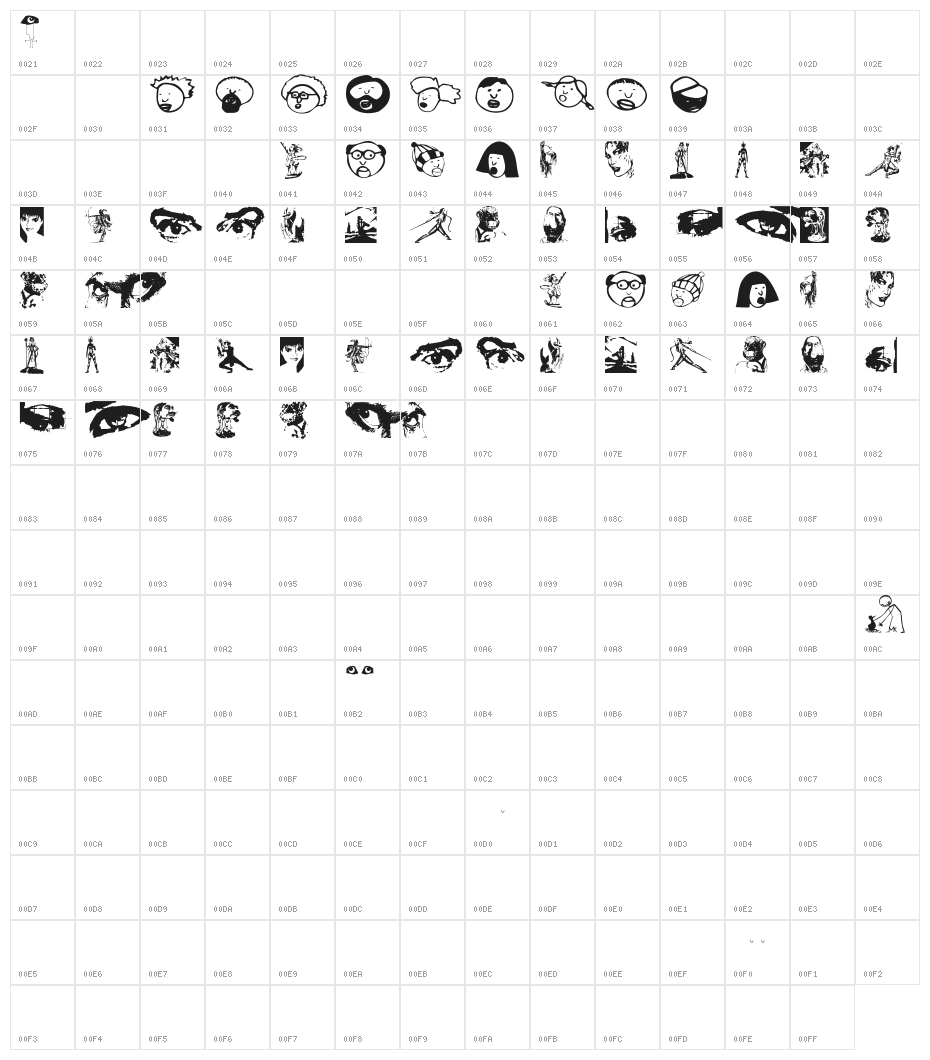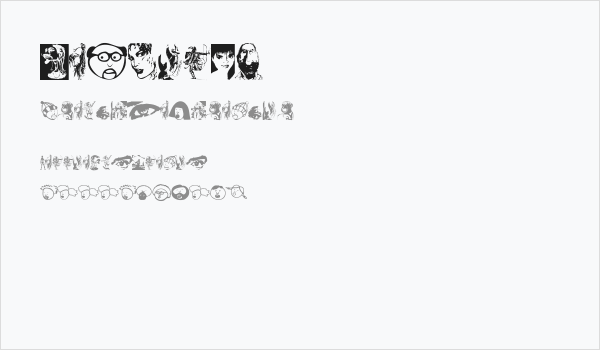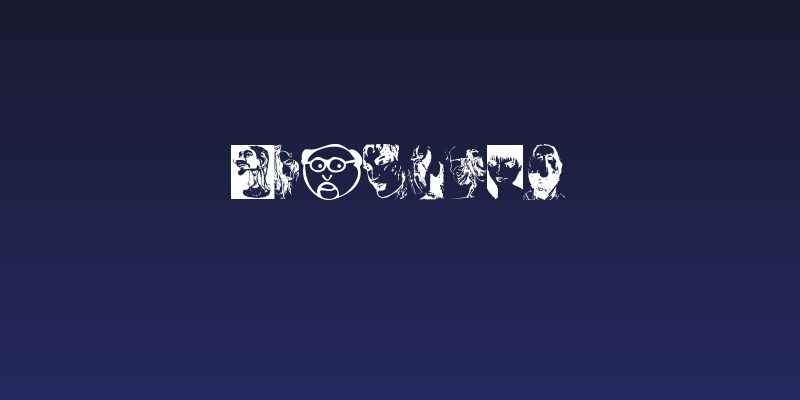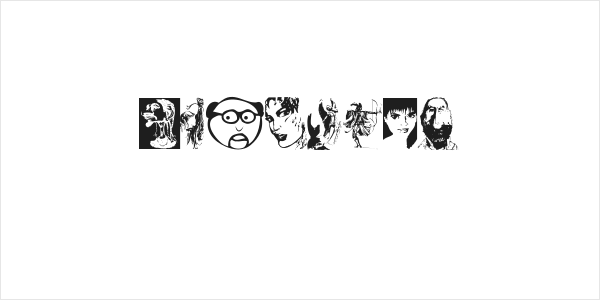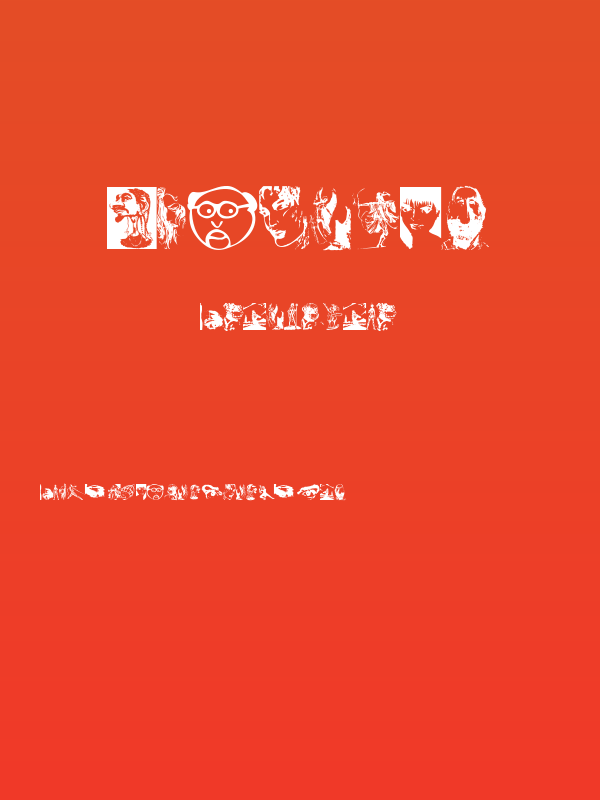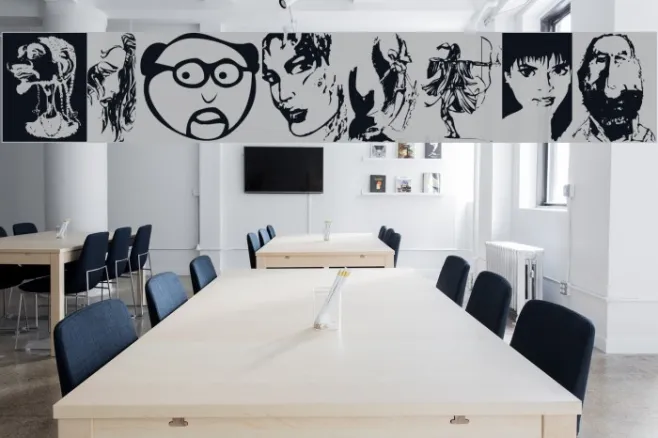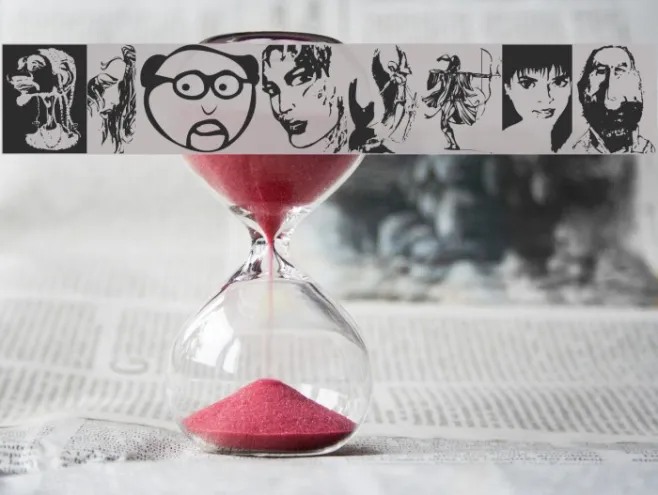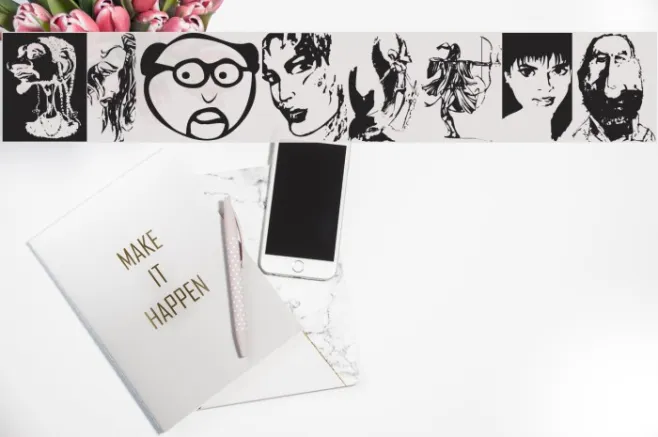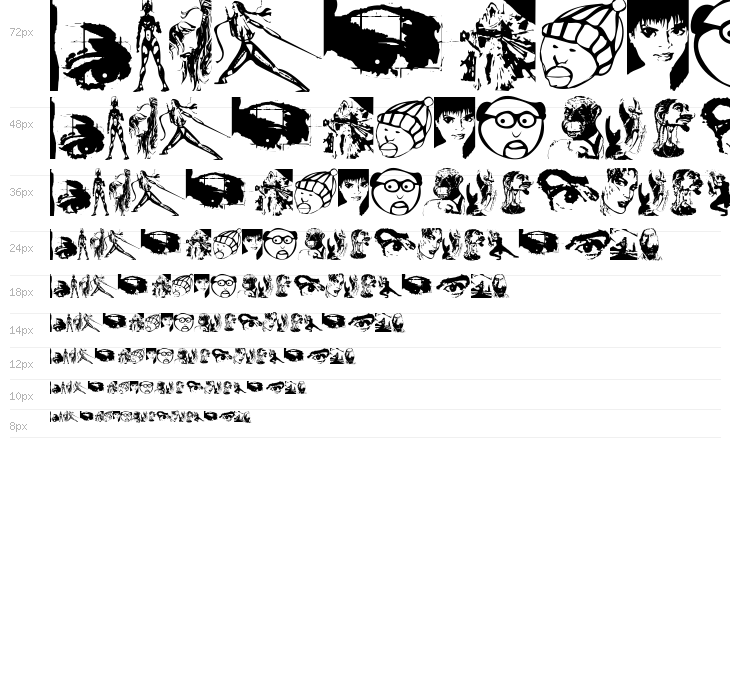
WebFolks Font
WebFolks Description
This is a highly decorative and illustrative font where each character is represented by a unique and detailed illustration. The characters are composed of various artistic depictions, including faces, figures, and abstract designs, making it more of an art piece than a traditional typeface. The font lacks uniformity in stroke thickness and character size, contributing to its eclectic and artistic appeal. It is not suitable for body text due to its complexity and lack of legibility but serves as a striking visual element in creative projects.
| Use Case | Logos, Posters, Artistic Designs |
| Proposed Projects | Ideal for artistic projects, posters, album covers, and any creative work where a visual impact is desired. |